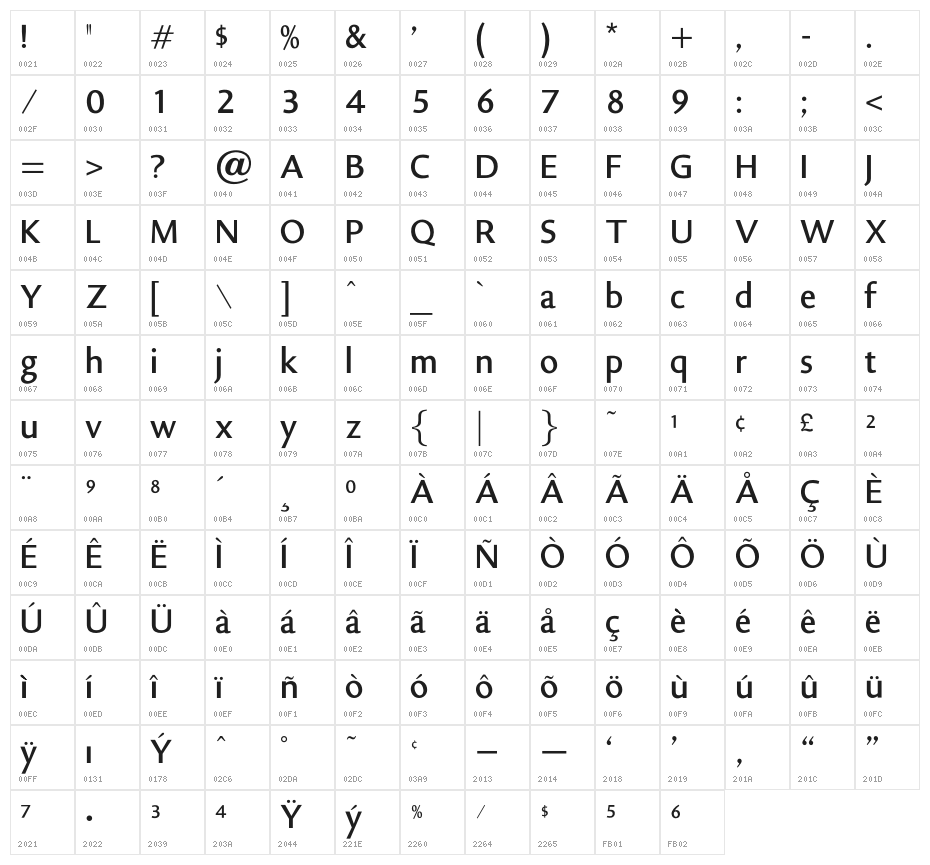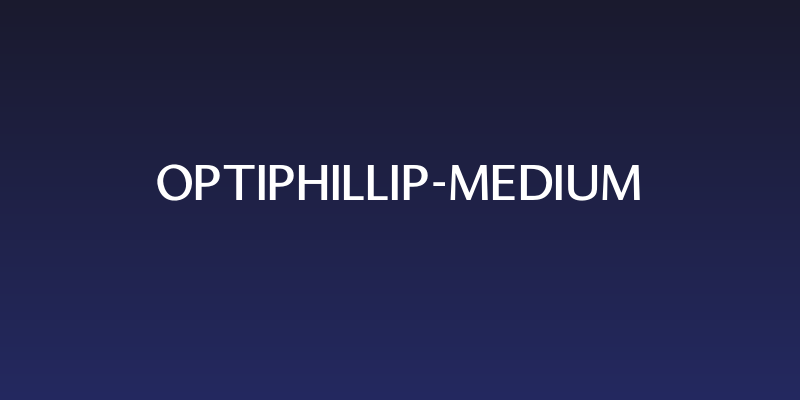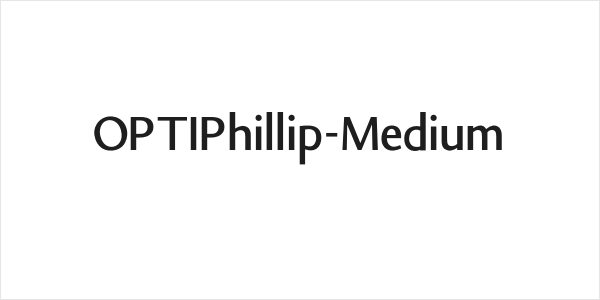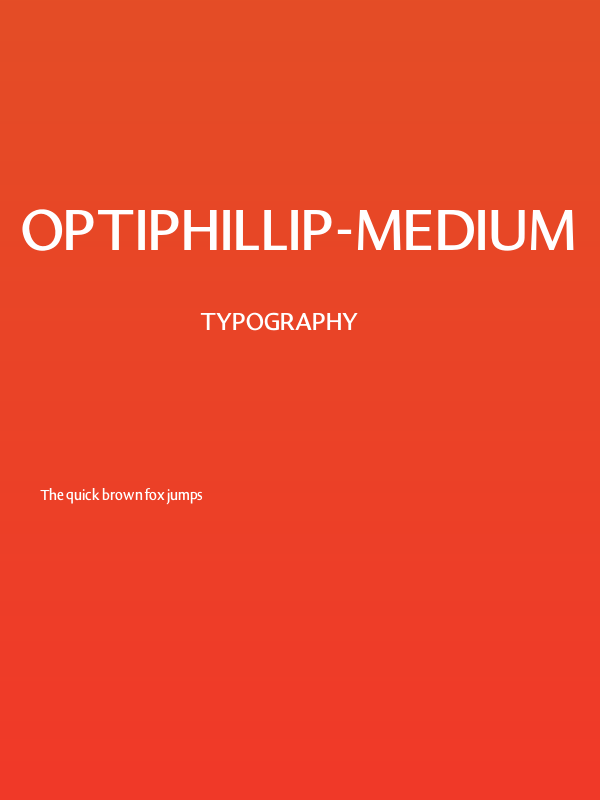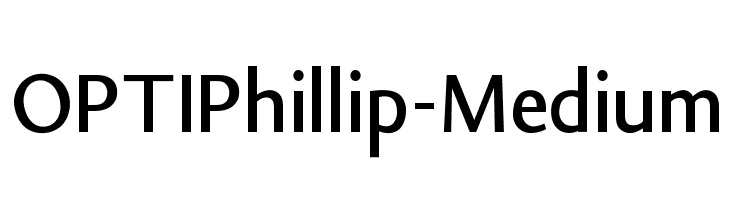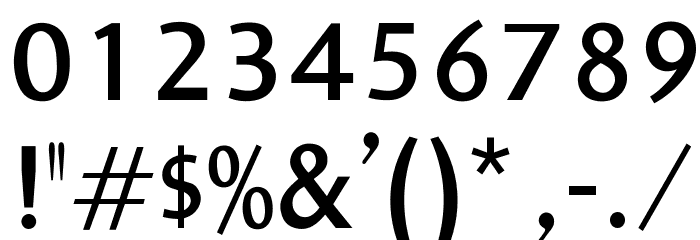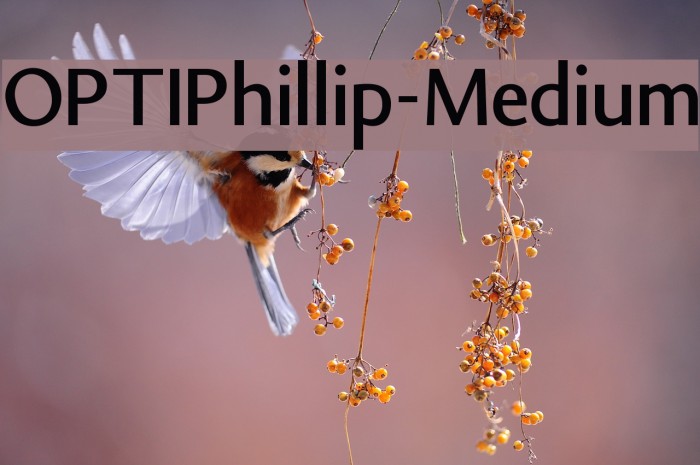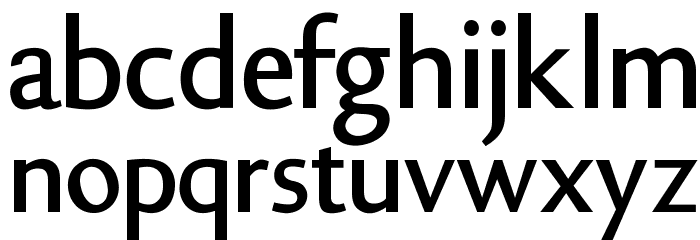
OPTIPhillip-Medium Font
OPTIPhillip-Medium Description
This font features a clean and modern sans-serif design, characterized by its balanced proportions and smooth curves. The uppercase letters are bold and assertive, while the lowercase letters maintain a consistent flow with rounded edges. The numerals are clear and easily distinguishable, making them suitable for various applications. The special characters are well-integrated, maintaining the overall aesthetic of the font. Its simplicity and clarity make it versatile for both digital and print media.